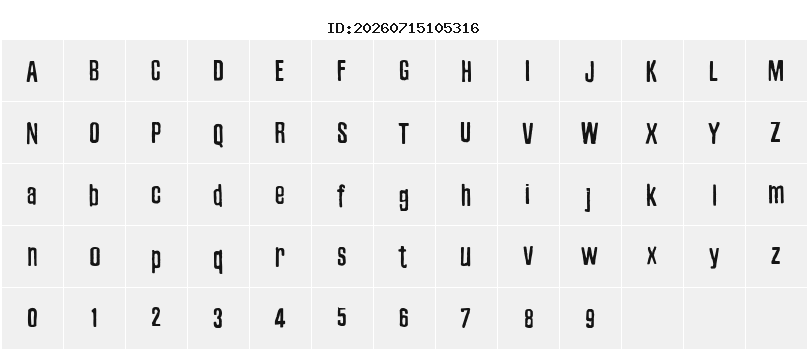
• Font Name: Zubajda Rg
• Designer: Bumbayo
• Manufacturer: BFF
About Zubajda Rg.ttf
Zubajda Rg.ttf is a modern, elegant sans-serif font designed for ultimate readability and visual harmony. Perfect for branding, headlines, web design, and print materials.